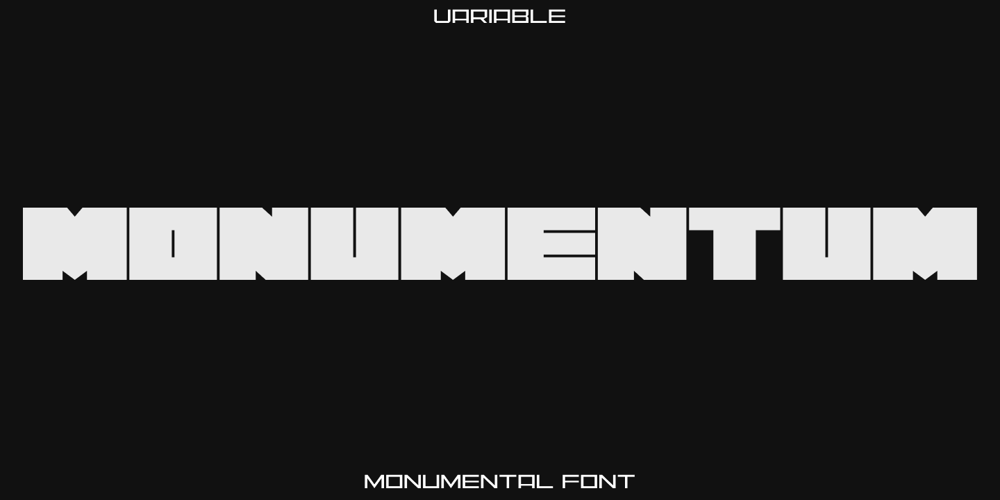
Monumentum Font Family was designed by Eugene Bunin and published by Harvester Type. Monumentum contains 6 styles and family package options. Monumentum is a font that matches its name, it is wide and large. It creates an atmosphere of significance, perseverance and seriousness. Its application is very wide. With 5 scales and great language support, everything is limited only by your imagination.Perfect for covers, logos, text, posters, banners, merch, headlines, and much more.If you find an error or an error in kerning somewhere, write to me and I will fix it: bunineugene@gmail.com